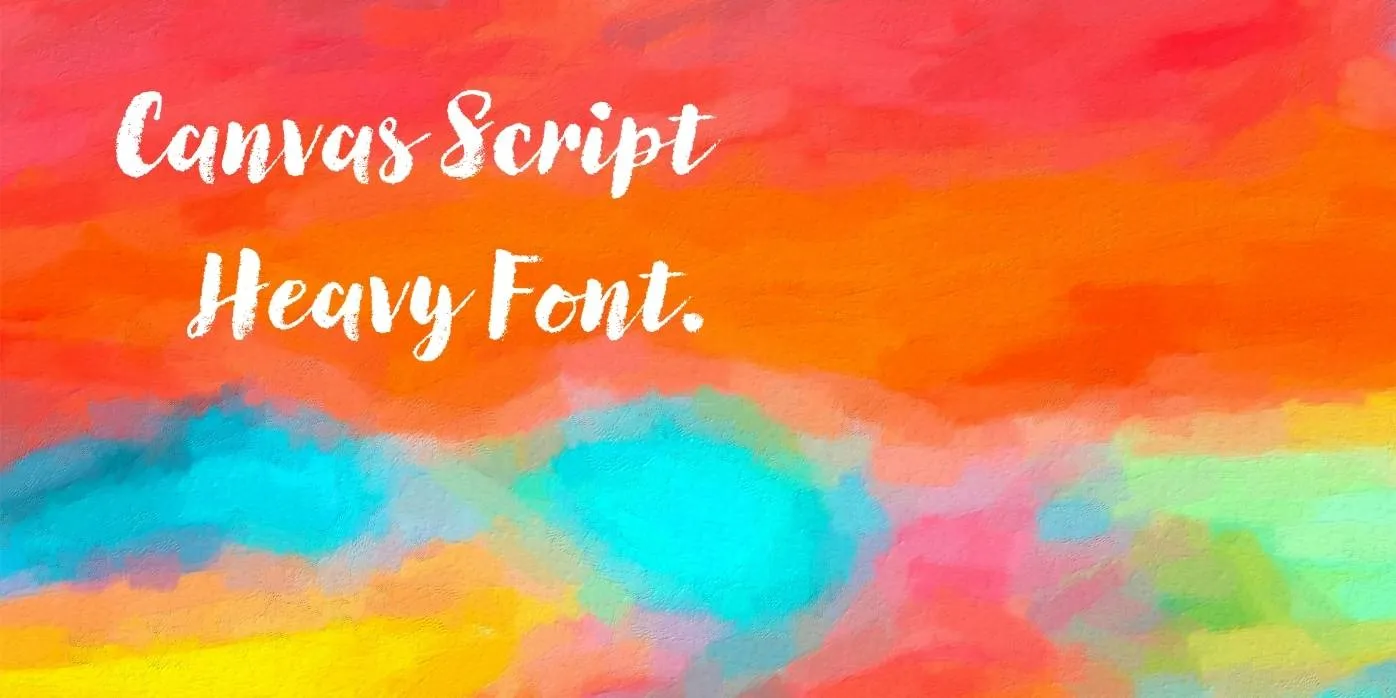
Canvas Script Heavy Font
Canvas Script Heavy Font was designed and published by Ryan Martinson in 2016. It is a script font that is mainly used for display and print purposes. This cute font has a haphazard but balanced letter with a semi-unfinished look. This cozy font is made up of stylish and emphatic characters, which makes it a good choice for logo and signage.
This font has an extensive range of alternate characters that can give your text a hand-lettered look. This stylish typeface is available in four weights: Condensed Extra Light, Condensed Light, Regular, and the Dense version. Its copy and paste function is perfect. Sacramento font is similar to this font family.
This typeface offers a lot of creative possibilities to take your design from ordinary to extraordinary designs. It is very famous because of its natural hand-lettering style. This font is awesome for designing industry projects. It is a display and print type that has very effective for all of your designs.